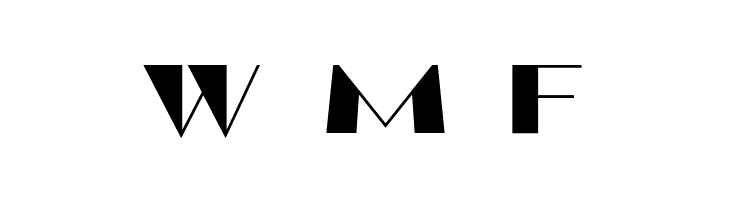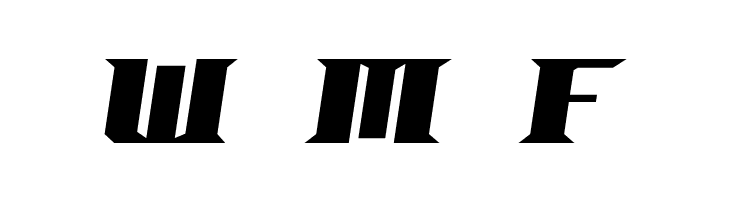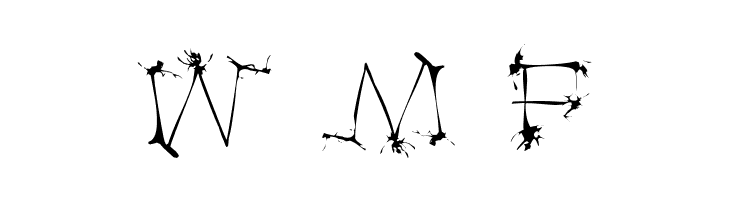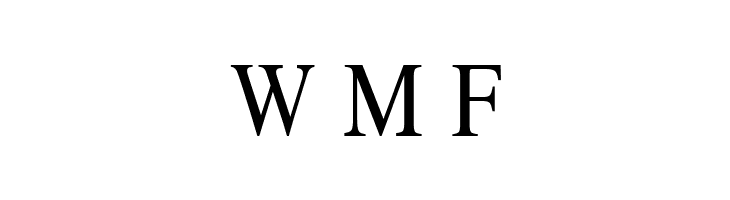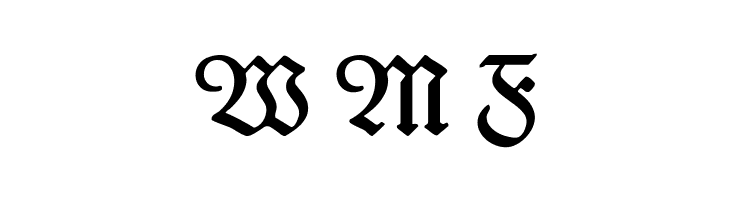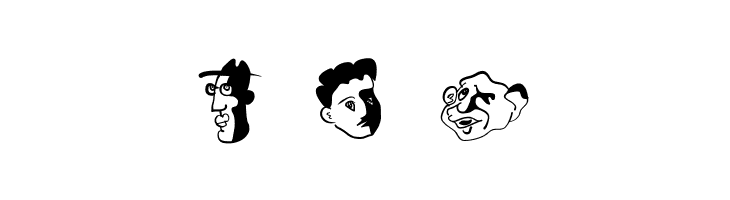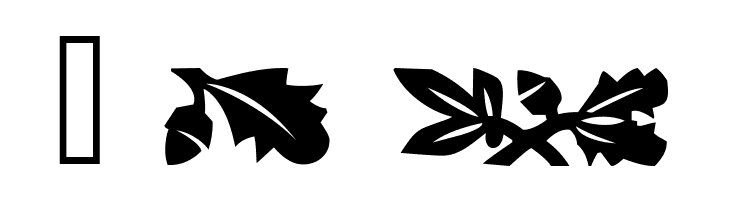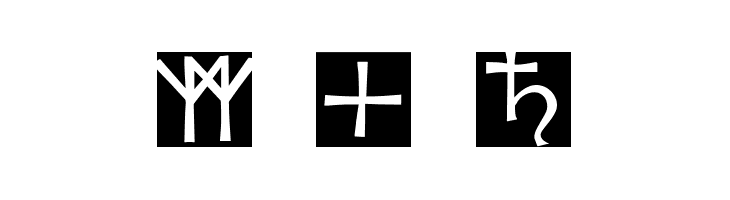
A decorative font with thorn-like embellishments, offering a gothic and organic appearance.
A sleek, modern, and condensed font with a light weight and minimalistic design.
A classic serif font with elegant strokes and balanced proportions.
A bold, stencil-style font with an industrial and rugged appearance.
A decorative font with intricate symbols and ornaments for artistic use.
A decorative font with abstract, mystical symbols and geometric shapes.
A bold, modern font with sharp angles and smooth curves.
A bold, oblique font with sharp, angular characters and a modern, dynamic style.
Cartoon caricature heads form each character in a bold, playful style.